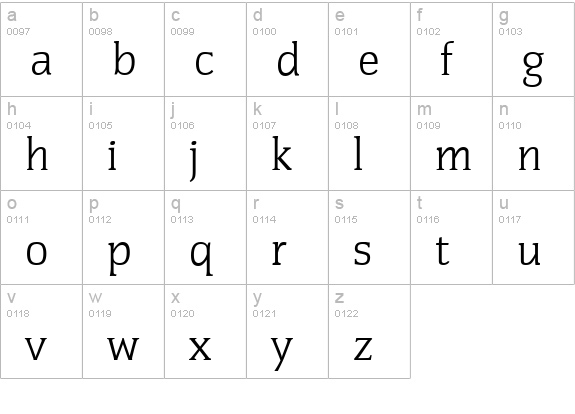
CongressSerial-Light-Regular is a refined, elegant variant in the CongressSerial typeface family \xE2\x80\x94 well suited to elegant body text, refined sub-headings, and luxury branding.
CongressSerial-Light-Regular is a modern and sleek font that exudes elegance and professionalism. With its clean lines and sophisticated design, this font is perfect for a wide range of projects, from business presentations to creative design work. The light weight of the font adds a touch of sophistication to any text, making it ideal for conveying a sense of refinement and class. Best of all, CongressSerial-Light-Regular is available for free download at FontsMarket.com. This means that you can easily access and use this stylish font in your projects without any cost. Whether you're a graphic designer, a business professional, or a student working on a project, CongressSerial-Light-Regular is a versatile font that will elevate your work to the next level. Download it today and add a touch of elegance to your designs!